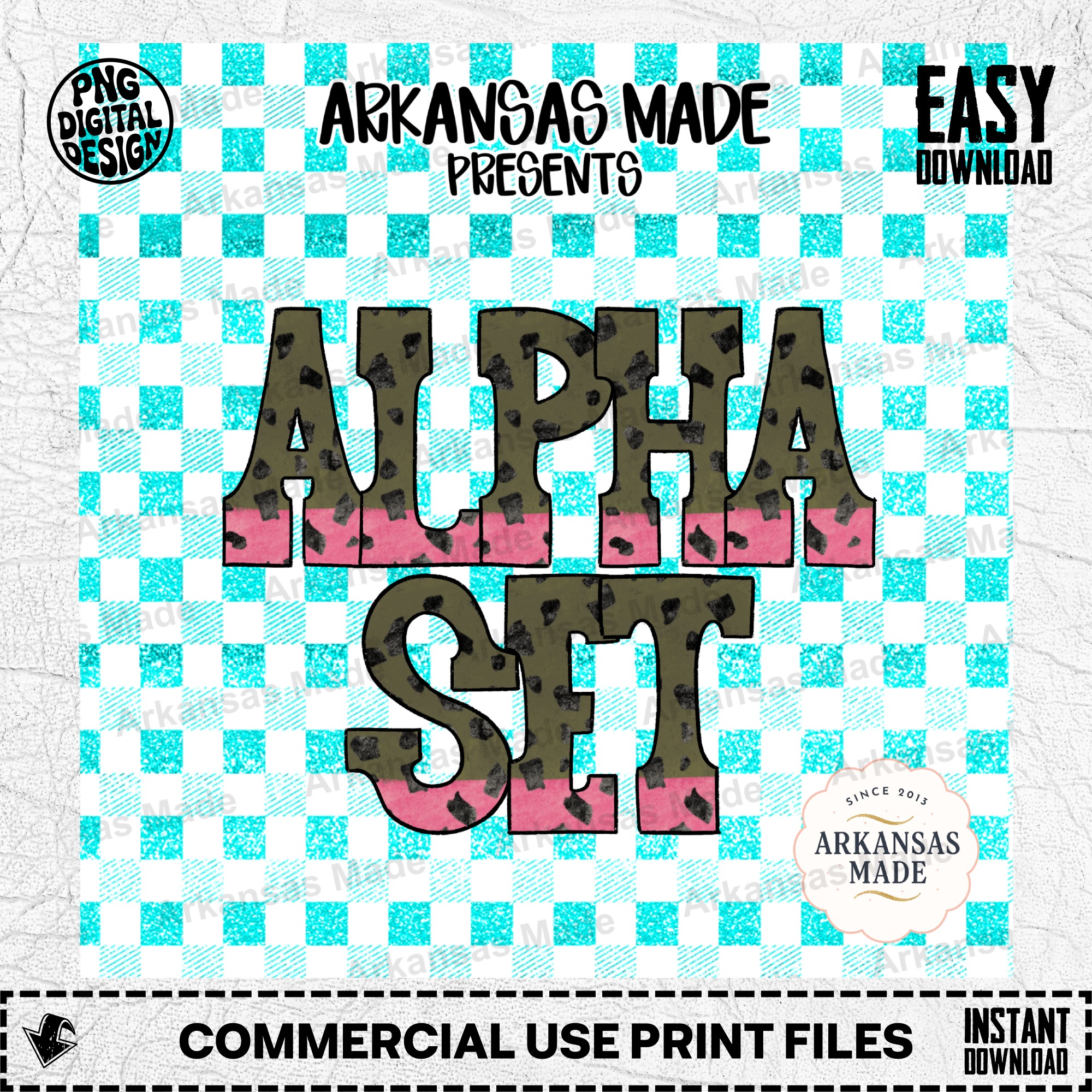
Unleash your creativity with our Trendy Cow Print Alpha PNGs! This unique animal print alphabet digital download is perfect for all your sublimation and design projects. Featuring a chic faux dalmatian spot design in rustic pink and olive green, this Alpha PNG set brings a modern Western Boho vibe to any personalized item. Ideal for crafters, small business owners, and those creating custom gifts for birthdays, nursery decor, or sorority events. Elevate your T-shirt designs, tumblers, and more with these versatile letters.